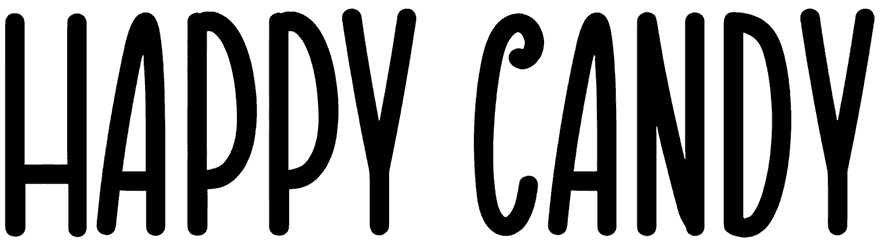
Happy Candy Font
From the very first look at Happy Candy, you can understand how beautiful it can look on posters, animations, and packaging for children’s items.
This candy font can create a wonderful sense of art in your projects, encouraging the audience to read the content. So, if you love creating new experiences that can help improve your designs, even though there are no lowercase letters in the set, you are in the right place.